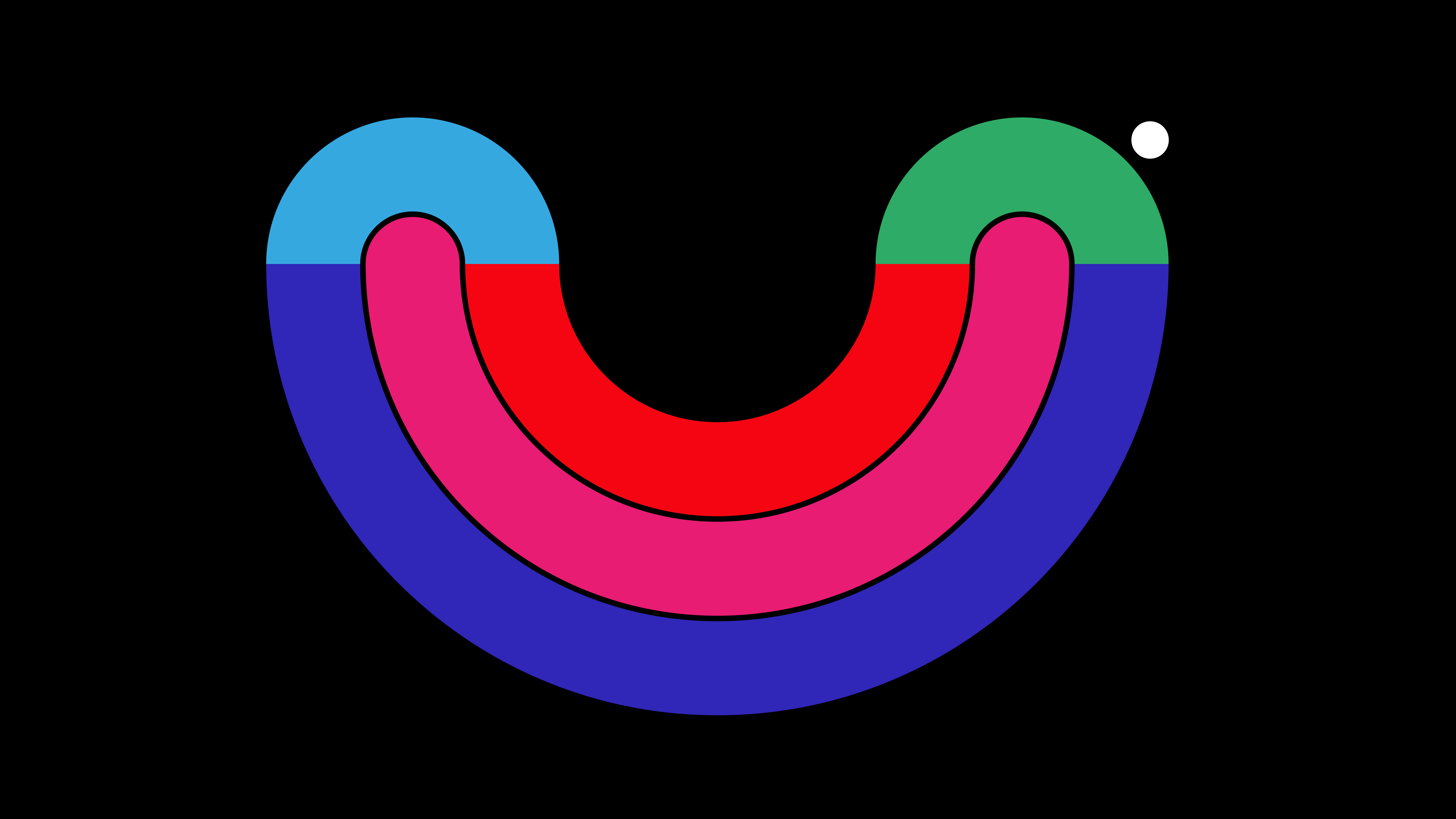
F37 Clown
Equal parts bonkers and bright, F37 Clown is a Color Font that truly delivers the colour.
This capital only font takes inspiration from balloon animals and the lively sprit of childhood. Haider Muhdi bends and twists letter forms into simple and approachable characters. F37 Clown is available in five colour ways. The first called Clown is the full palette package, brimming with 12 energetic and disparate colours. The two other bright styles, called Pink and Orange, have more selective colour palettes, each bringing their own tonality to your message. The style Sad is our nod to the sad clown, with its muted colours it will bring the mood down. Finally Black is an all black version for all your monochromatic needs.
F37® × Haider Muhdi